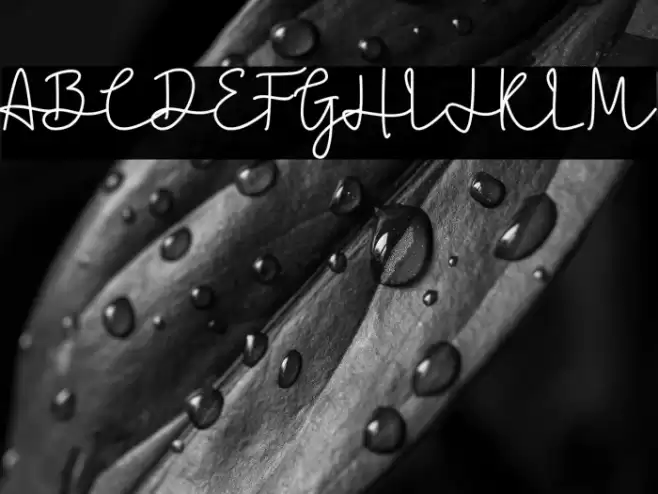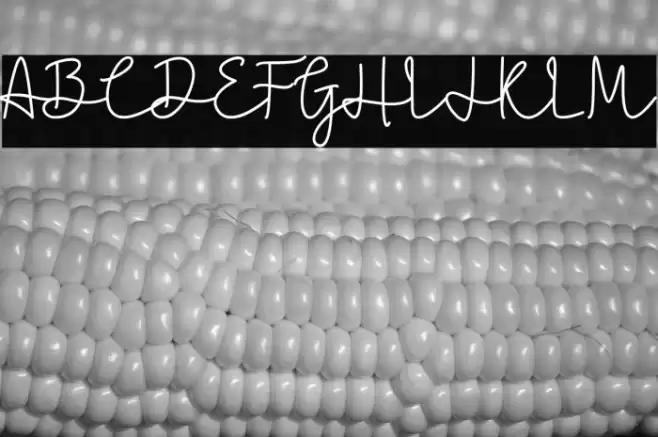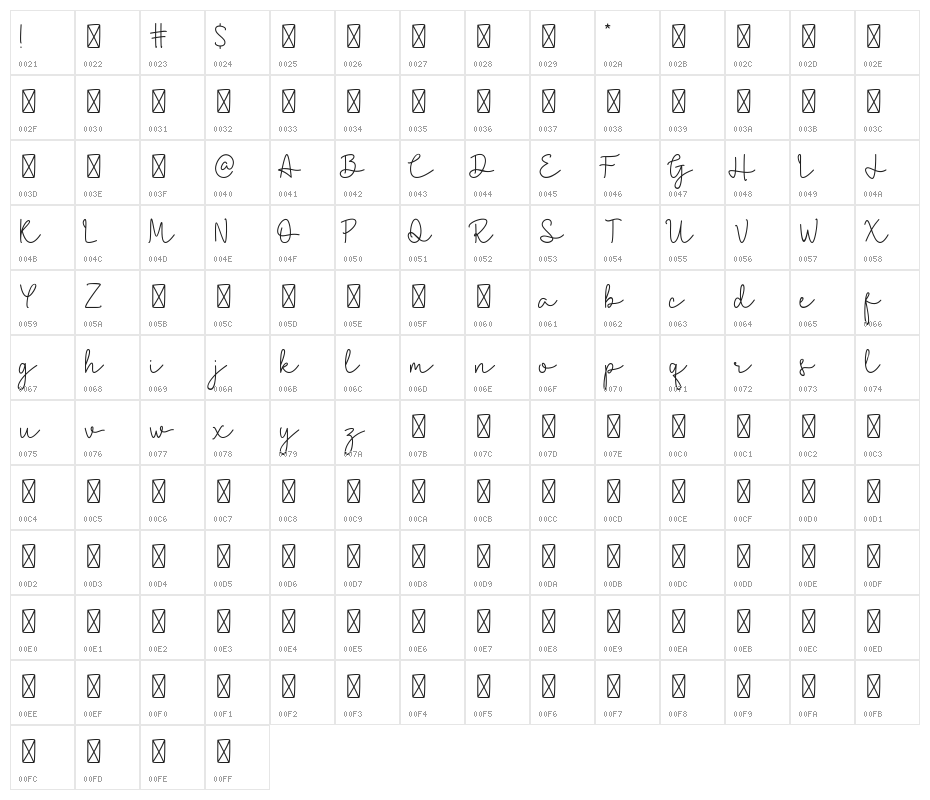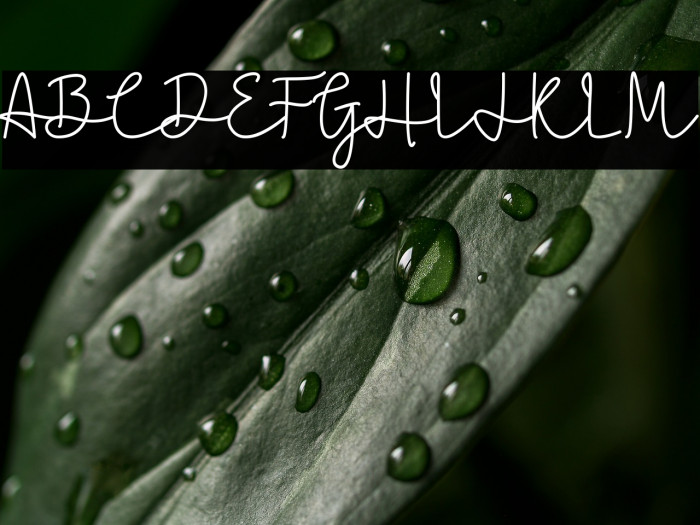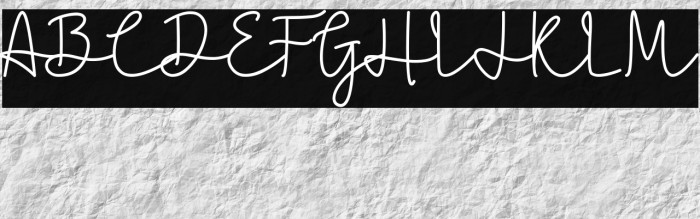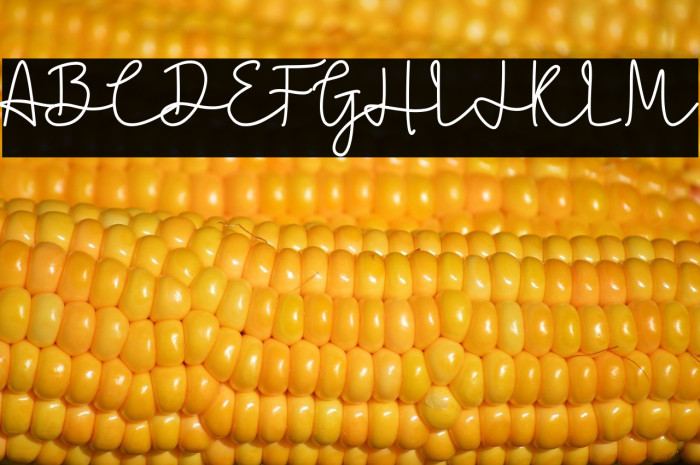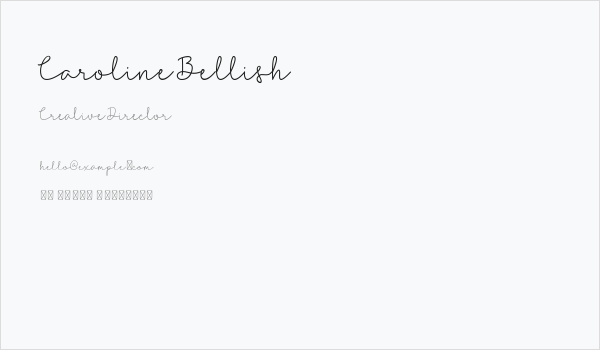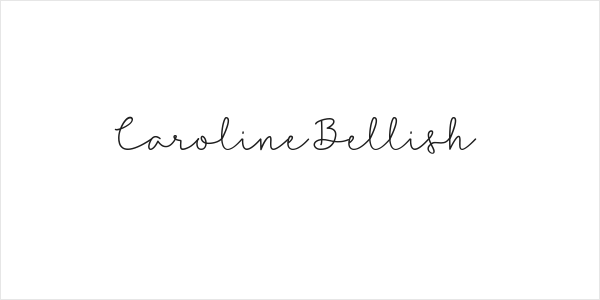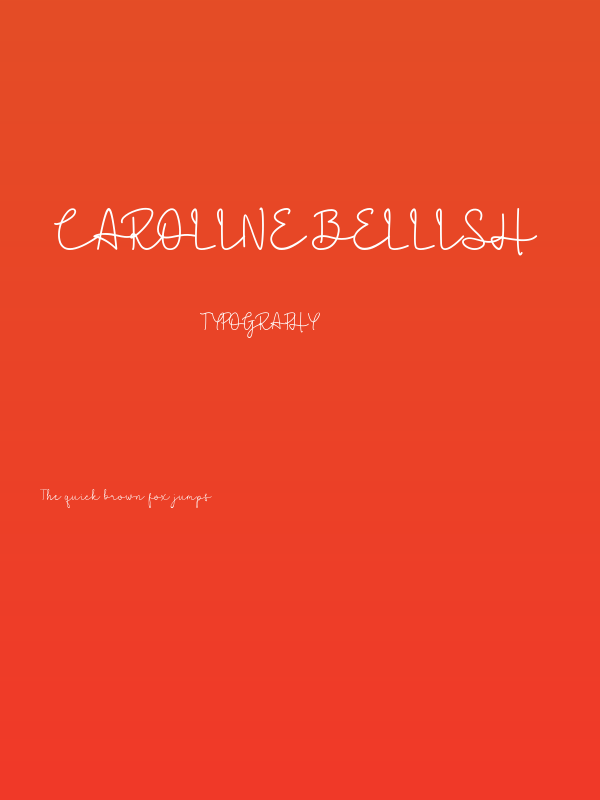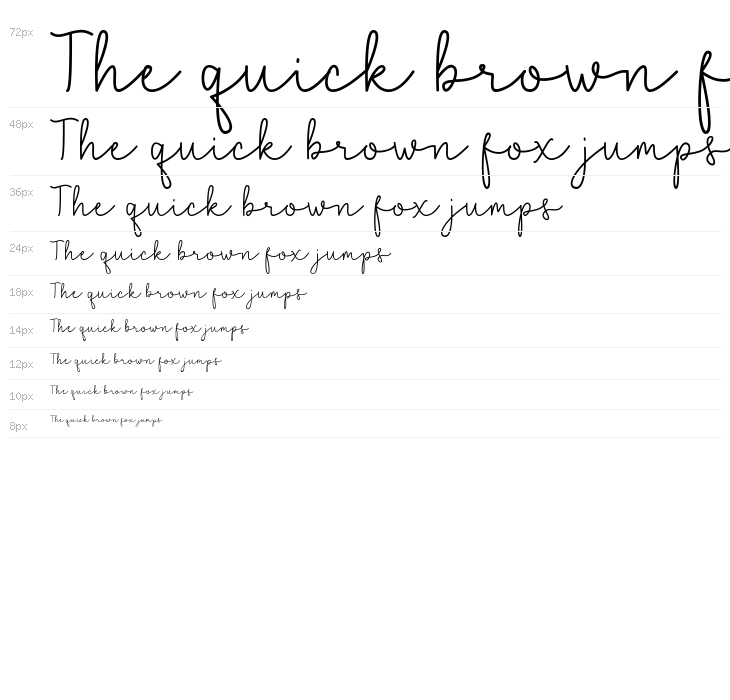
Caroline Bellish Font
Caroline Bellish Description
This font features a charming handwritten style with a smooth, flowing script that mimics natural handwriting. The uppercase letters are elegantly looped, while the lowercase letters maintain a consistent, cursive flow. The characters are slightly slanted, adding to the handwritten feel. The font exudes a personal and friendly vibe, making it ideal for projects that require a touch of warmth and personality. The absence of numbers and some special characters suggests a focus on textual and decorative uses.
A charming handwritten script with smooth, flowing characters from Uncategorized fonts.
- Font: Caroline Bellish
- Proposed Projects: Ideal for wedding invitations, personal branding, greeting cards, and social media graphics.
- Use Case: Logos, Invitations, Personal branding